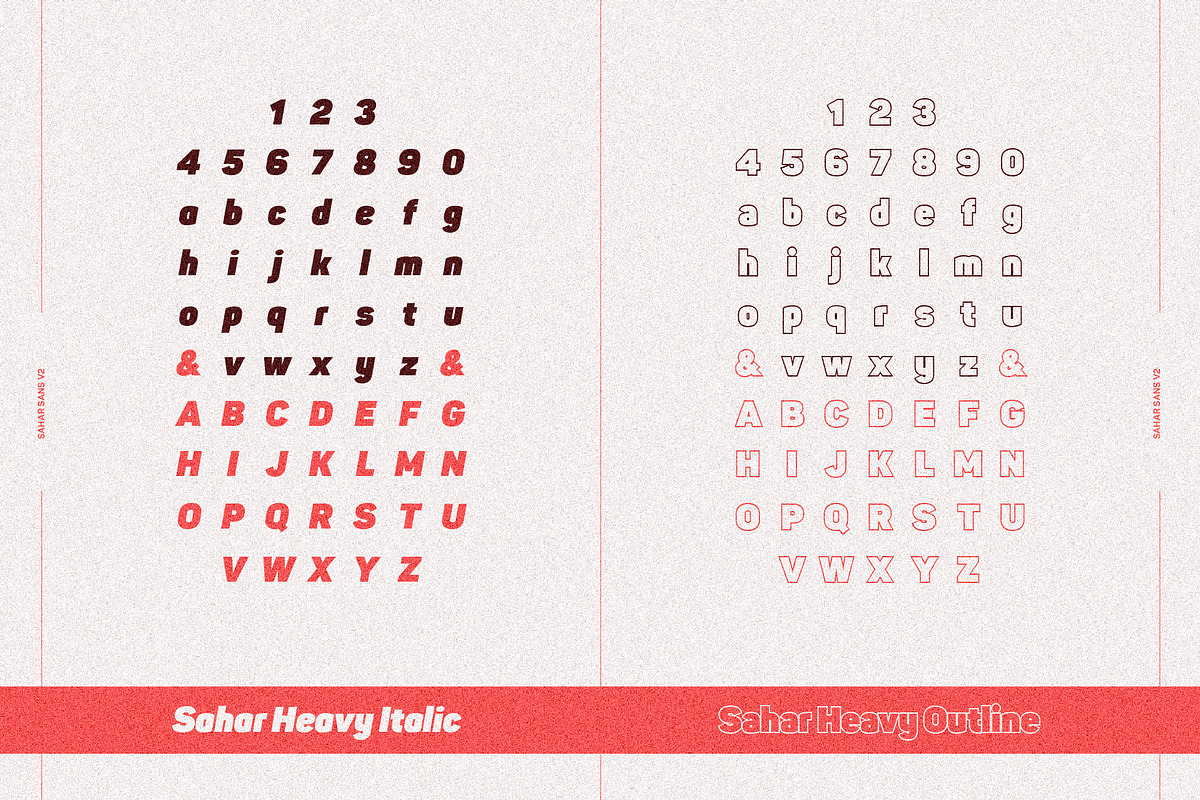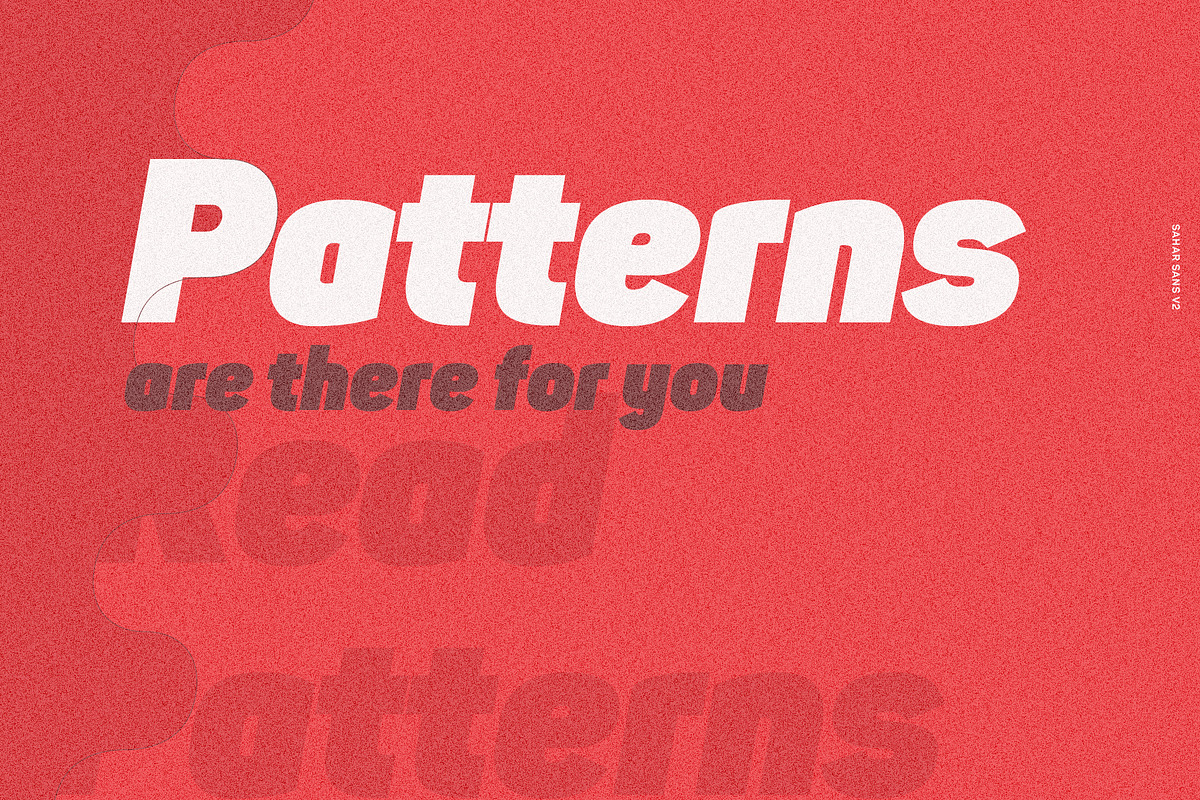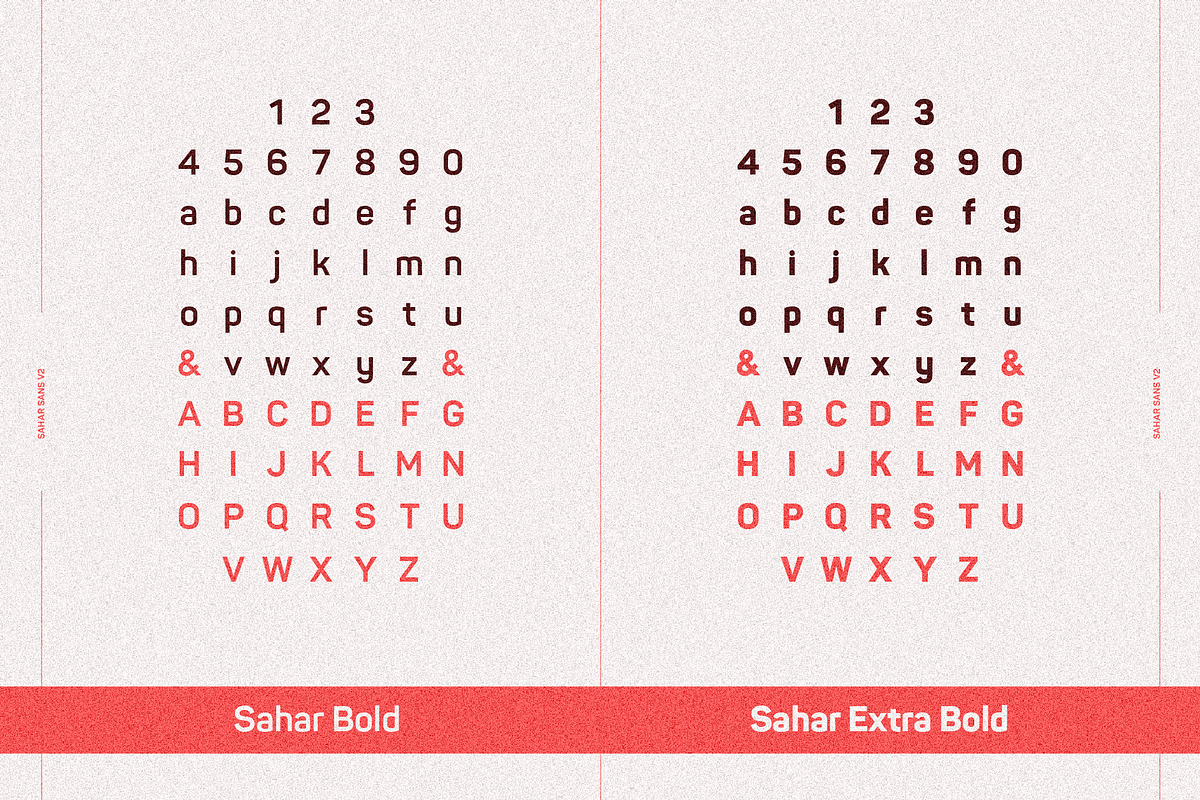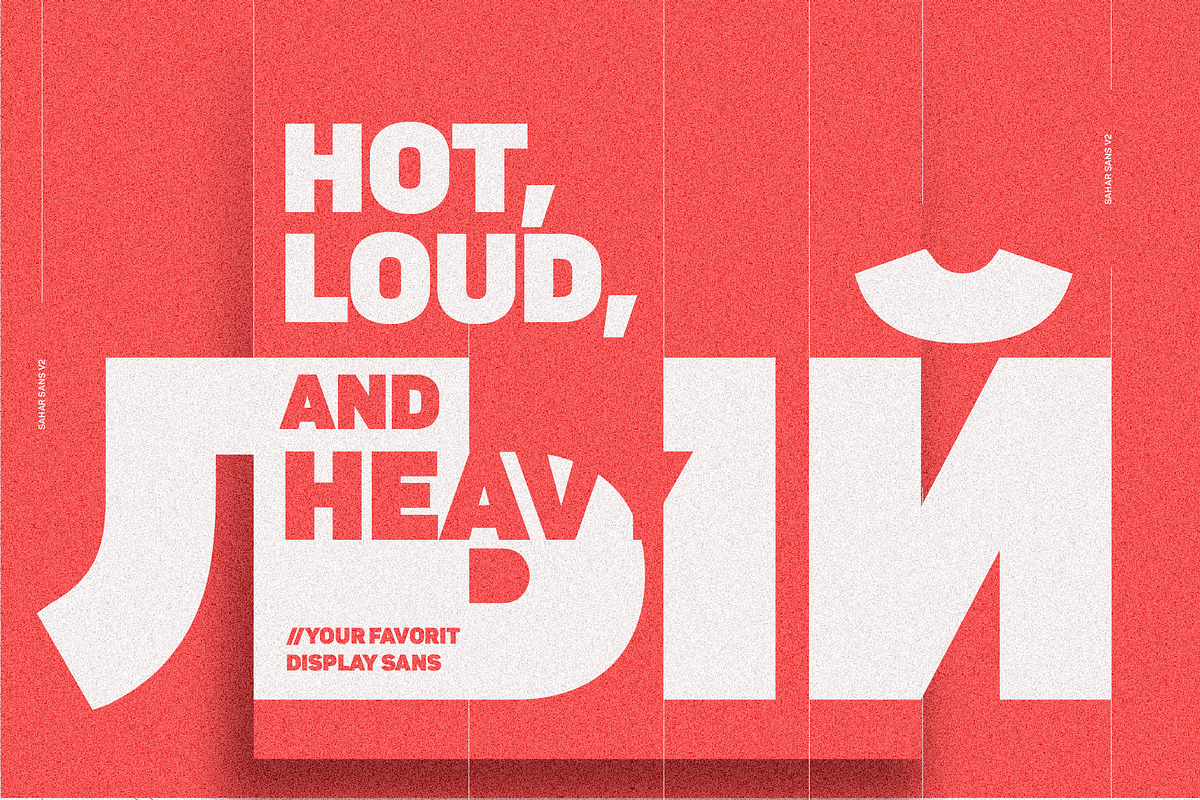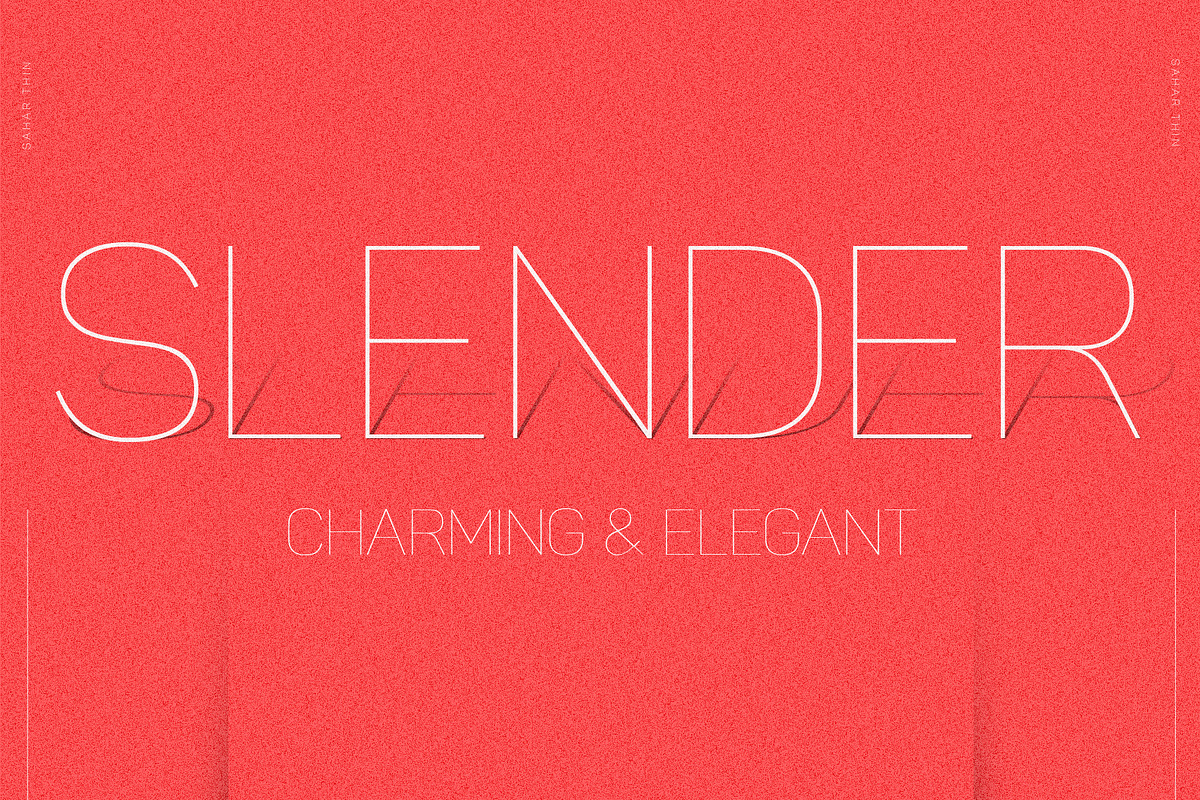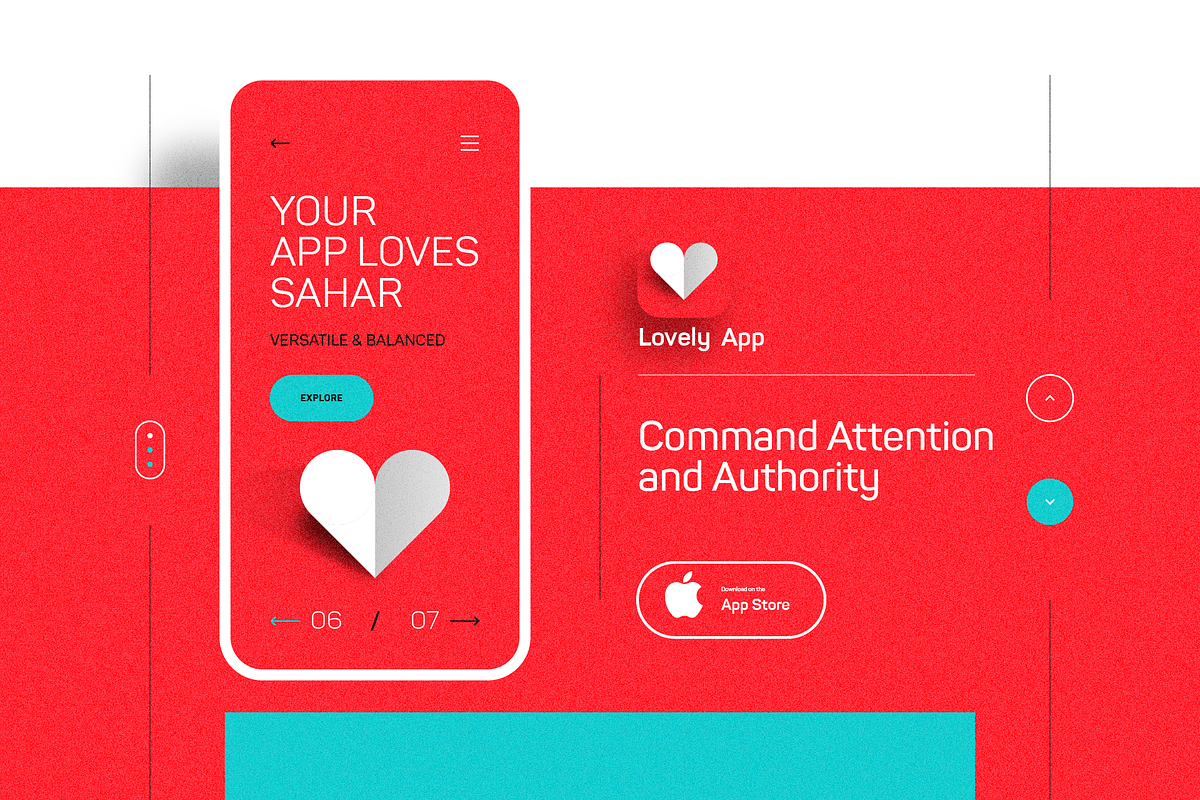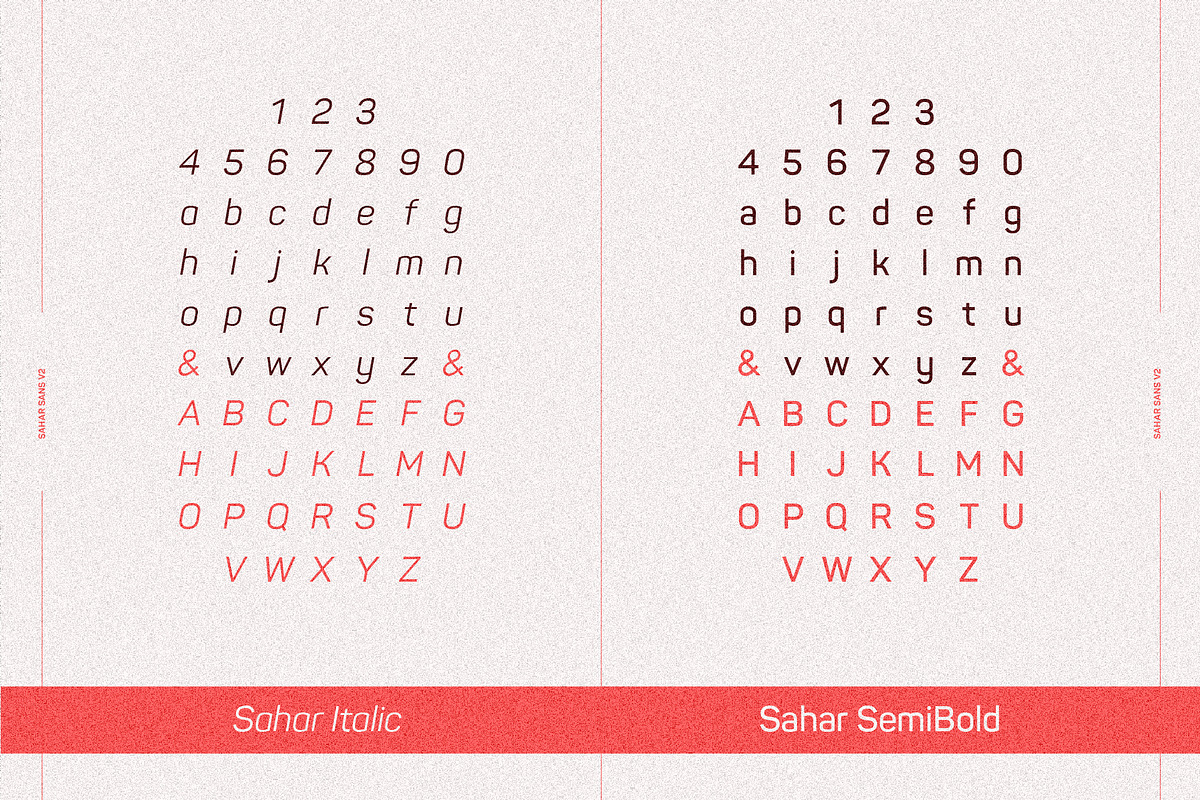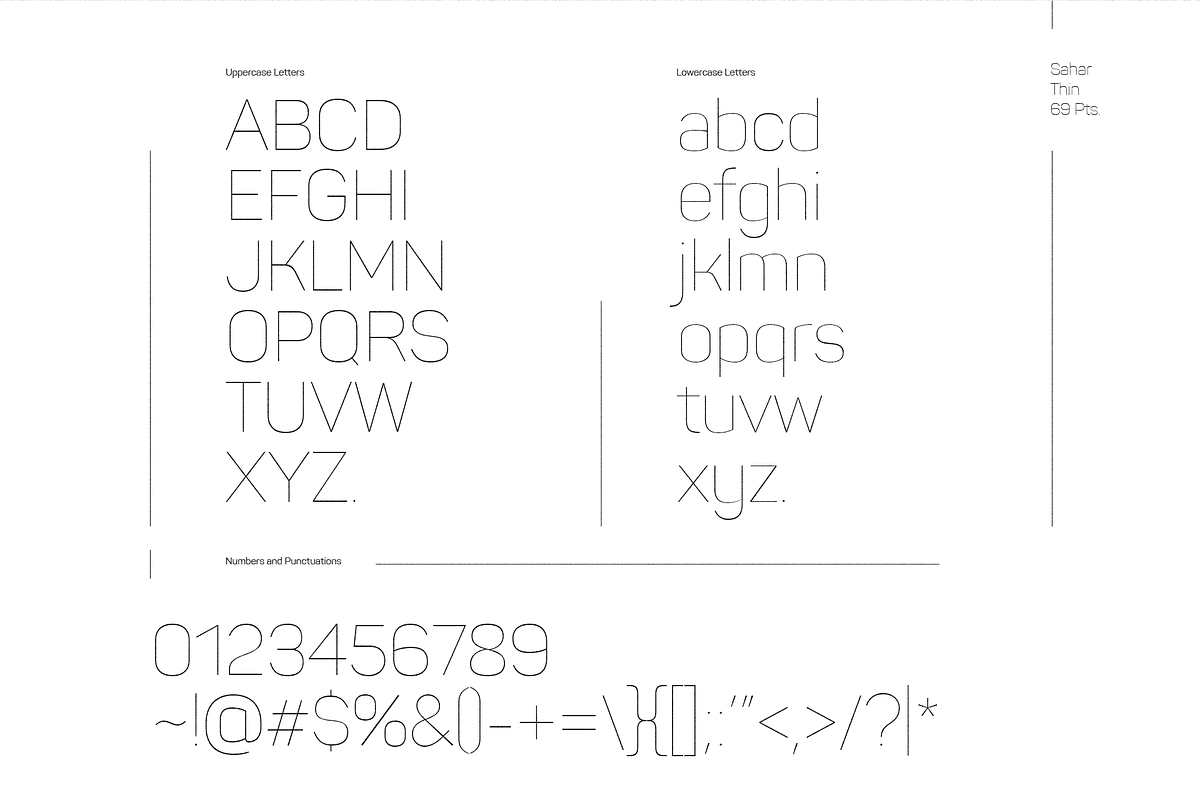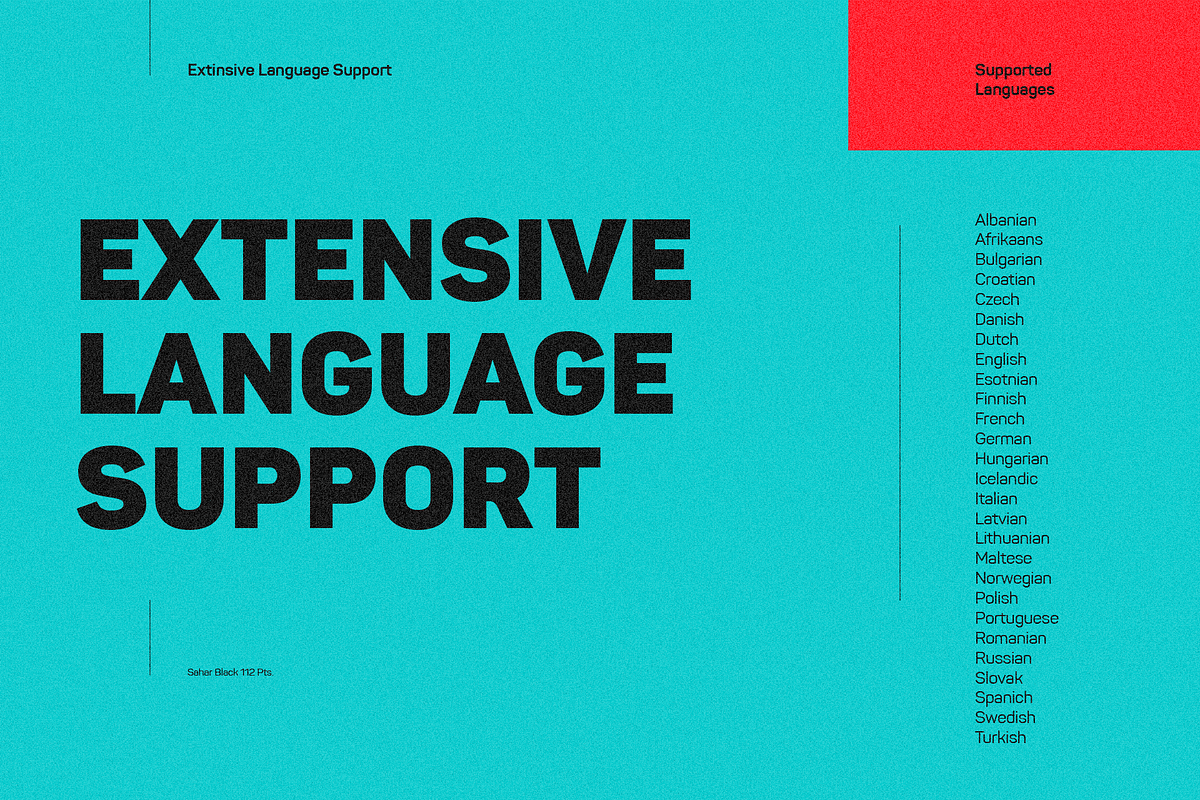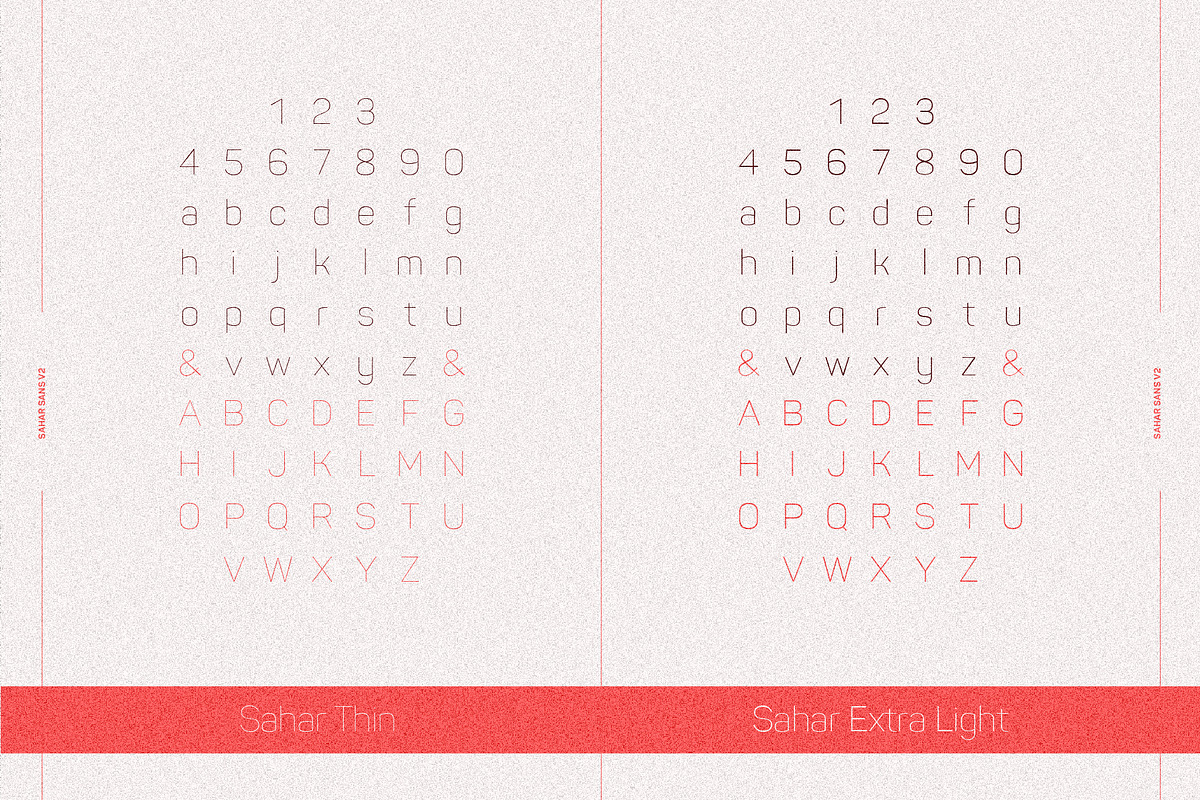
Powerful, Versatile & Charming.
Inspired by the word (enchantment in Arabic), its charming and uncompromising style is felt through the controlled letterforms and modern touches. The balance of hard lines and smooth curves renders power and commands attention for each weight of the family. Each font in the family can stand alone, dynamic and authoritative in its own right.
Sahar includes 18 roman and italic fonts, and they're available as single release sets of roman & italic fonts
Sahar font suits branding, logos, magazines, and film work. The different weights give you full range to explore a whole host of applications and give your projects a modern and charming feel.